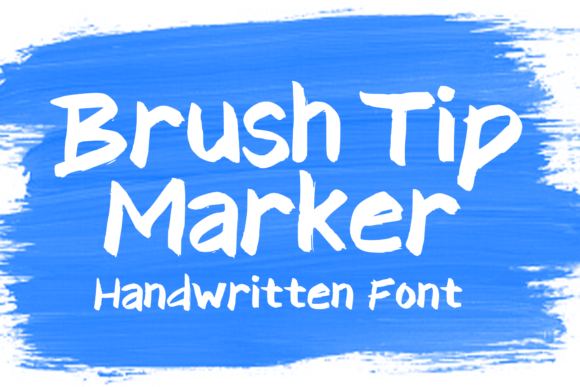
Introducing Brush Tip Marker Font: Adding a Casual Touch to Your Designs
The Brush Tip Marker Font is a unique and versatile font that is perfect for adding a personal touch to your designs. This font is created using real brush tip marker hand lettering, giving it a distinct and authentic feel. With its casual and playful style, it’s ideal for a wide range of projects, from t-shirts and kids’ book designs to greeting cards, stickers, and posters.
The Characteristics of Brush Tip Marker Font
The Brush Tip Marker Font is characterized by its hand-crafted look, which is achieved through the use of real brush tip markers. The font features varying line widths and a subtle texture, giving it a organic and human feel. The letters are carefully crafted to resemble handwriting, making it perfect for designs that require a personal touch.
Uses of Brush Tip Marker Font
The Brush Tip Marker Font is incredibly versatile and can be used for a wide range of projects. Here are some ideas to get you started:
- T-shirts and apparel: Add a casual touch to your t-shirt designs with the Brush Tip Marker Font. It’s perfect for creating fun and playful designs that appeal to a wide range of audiences.
- Kids’ book designs: The Brush Tip Marker Font is ideal for kids’ book designs, as it adds a playful and imaginative touch to your illustrations.
- Greeting cards: Create personalized greeting cards with the Brush Tip Marker Font. It’s perfect for birthdays, holidays, and special occasions.
- Stickers and posters: Add a pop of color and personality to your stickers and posters with the Brush Tip Marker Font.
Benefits of Using Brush Tip Marker Font
The Brush Tip Marker Font offers several benefits, including:
- Uniqueness: The Brush Tip Marker Font is a unique and distinctive font that will set your designs apart from others.
- Versatility: The font is incredibly versatile and can be used for a wide range of projects.
Tips for Using Brush Tip Marker Font
Here are some tips for using the Brush Tip Marker Font:
- Experiment with different colors: The Brush Tip Marker Font looks great in a variety of colors, so don’t be afraid to experiment and find the perfect color for your design.
- Use it with other fonts: The Brush Tip Marker Font pairs well with other fonts, so try using it with a sans-serif font for a contrasting look.
- Pay attention to spacing: Make sure to pay attention to the spacing between letters and words to ensure that your design looks clean and professional.
The Brush Tip Marker Font is a unique and versatile font that is perfect for adding a casual touch to your designs. With its hand-crafted look and feel, it’s ideal for a wide range of projects, from t-shirts and kids’ book designs to greeting cards, stickers, and posters. Whether you’re a designer, artist, or DIY enthusiast, the Brush Tip Marker Font is a great addition to your font collection.
- What is the Brush Tip Marker Font? The Brush Tip Marker Font is a unique font created using real brush tip marker hand lettering.
- What can I use the Brush Tip Marker Font for? The Brush Tip Marker Font can be used for a wide range of projects, including t-shirts, kids’ book designs, greeting cards, stickers, and posters.